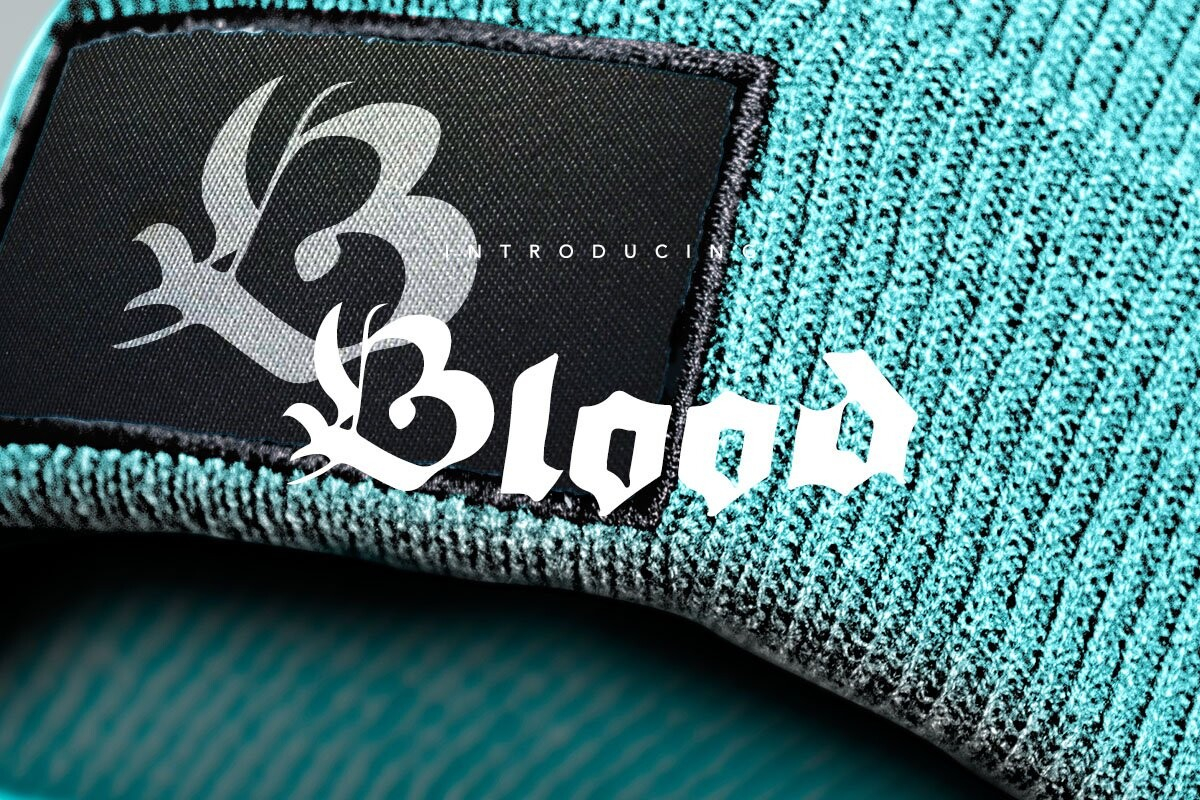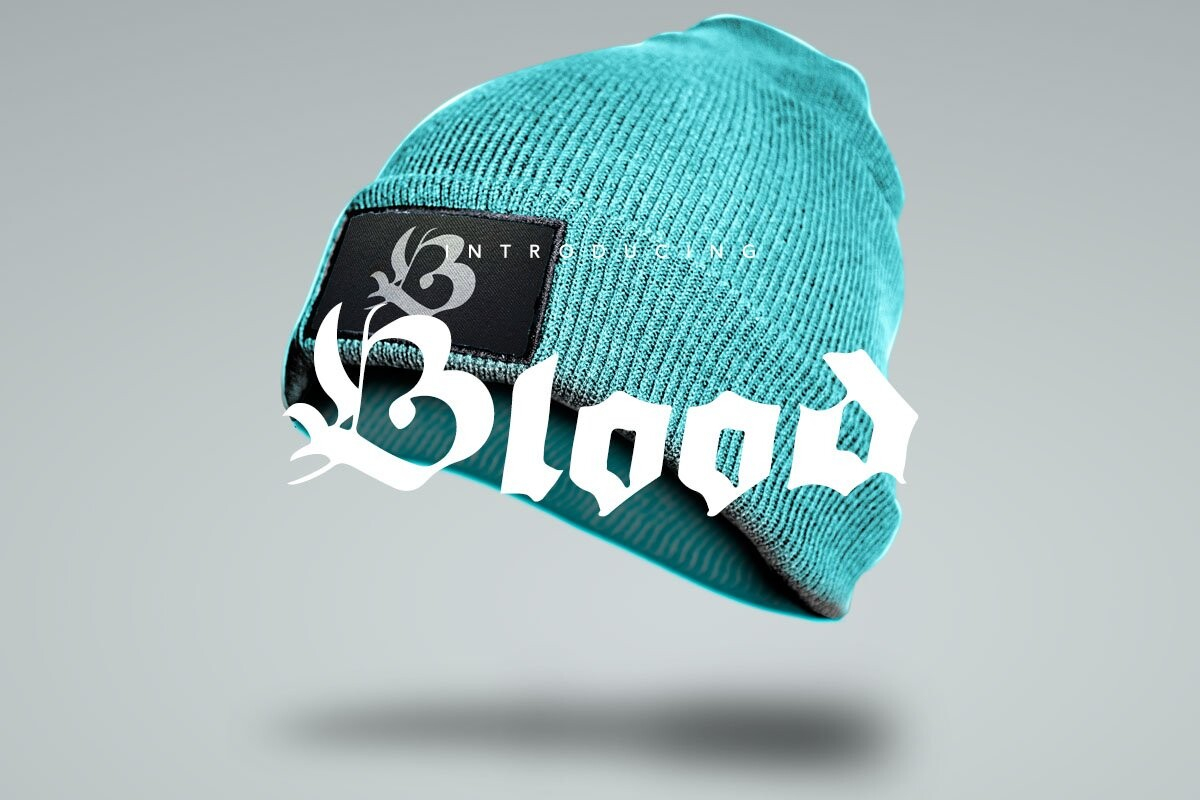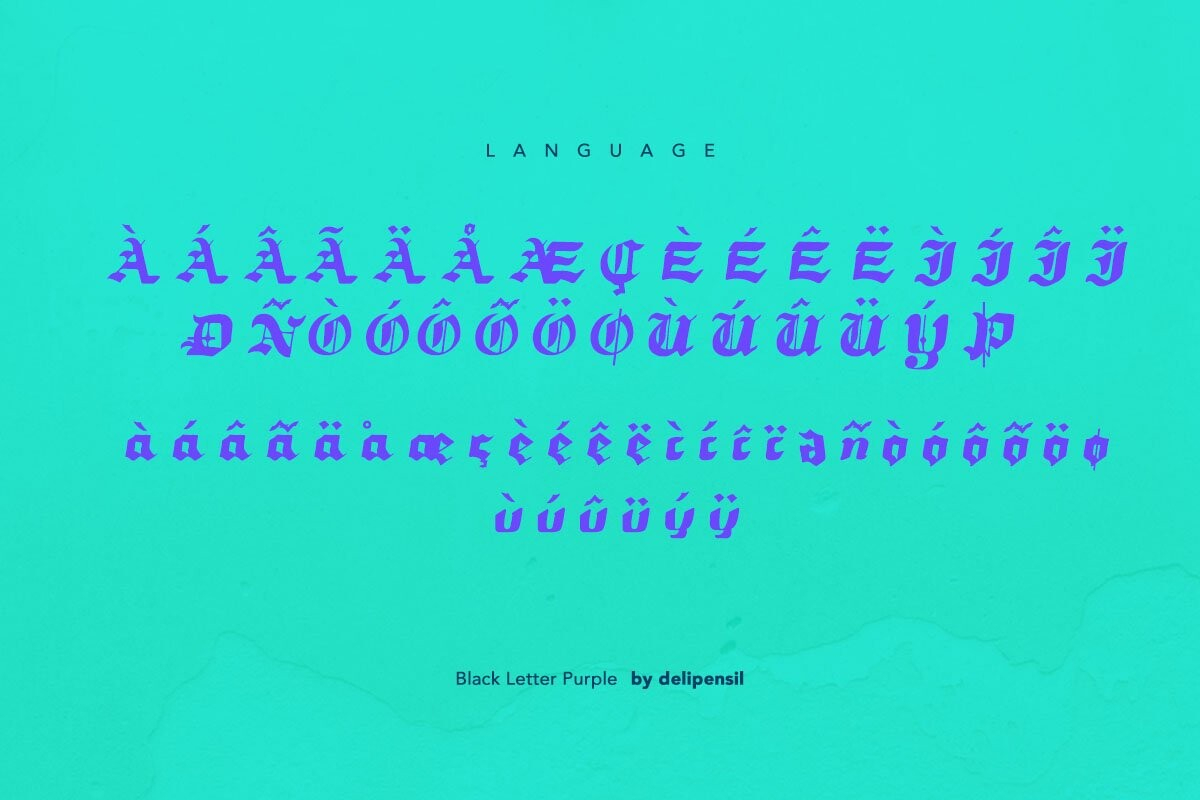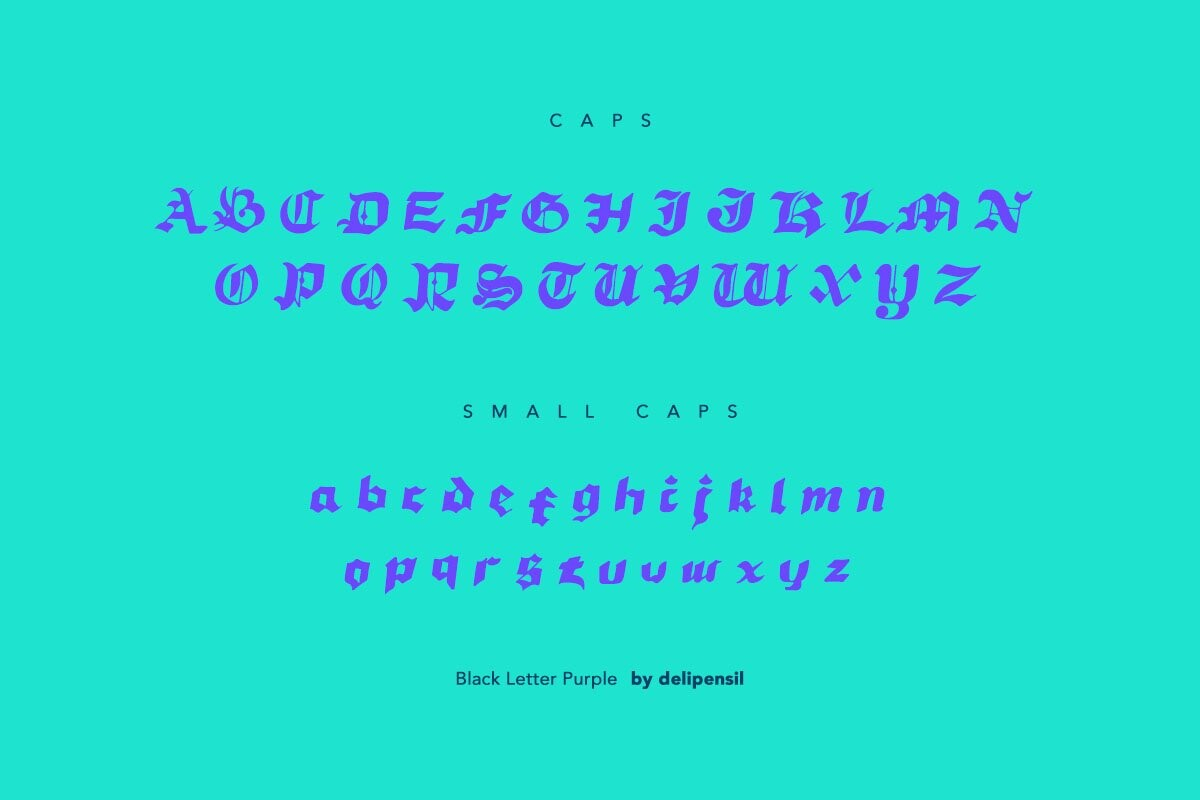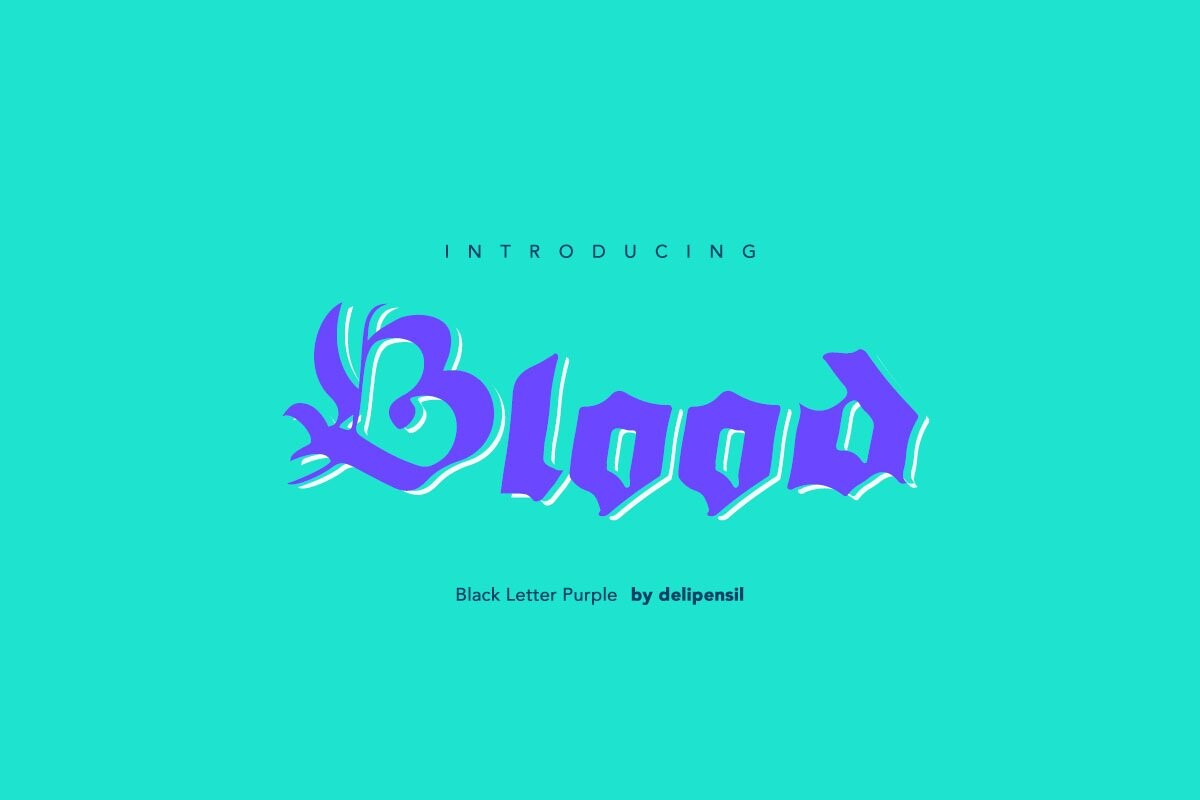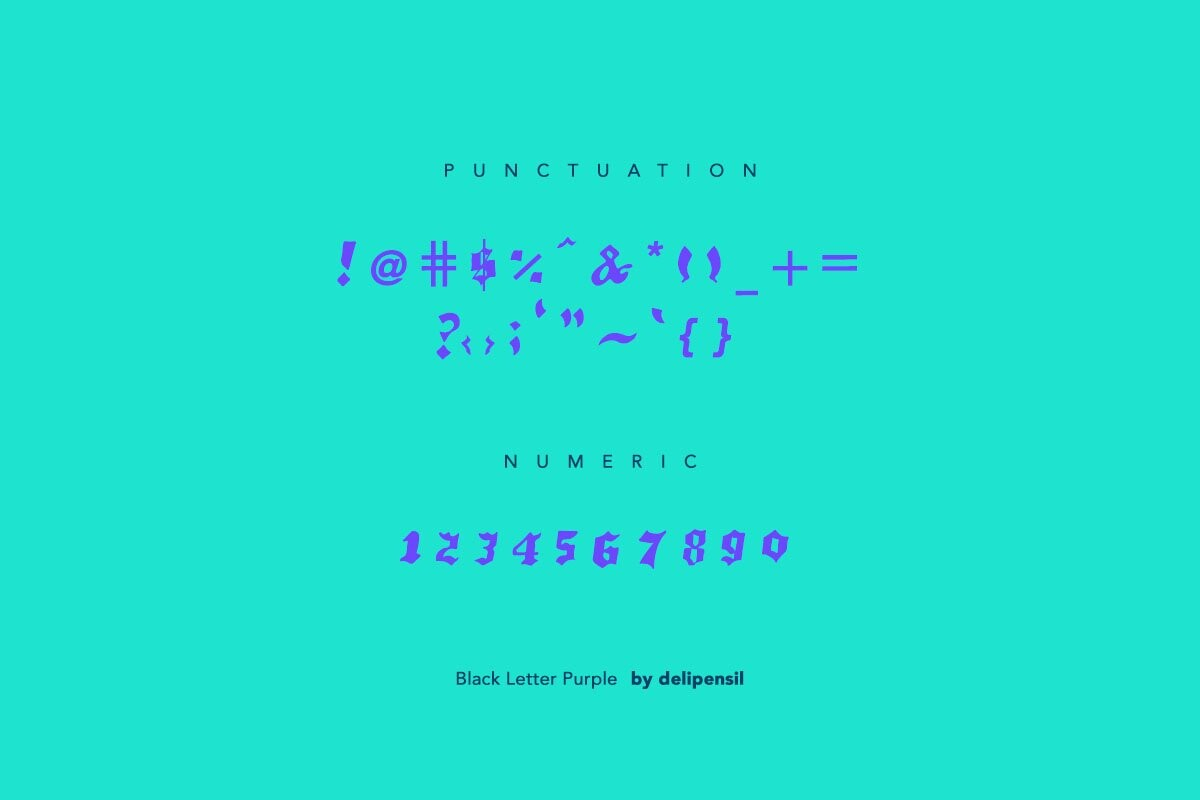
Blood Font
About Blood Font
This font comes with a unique character, beauty clean, and sweet look too, and this font is Suitable for Packaging Food, Logo Letter, Sans Serif font, Poster or clothing design, and many more.